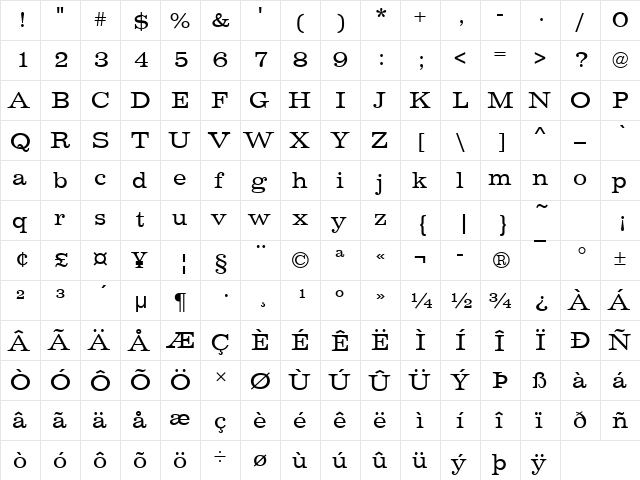
VoltaT Regular Font Preview
VoltaT Regular
VoltaT Regular Font Details
Design Context for VoltaT Typeface
VoltaT is a composed and adaptable typeface that performs quietly and consistently across a wide range of design contexts.